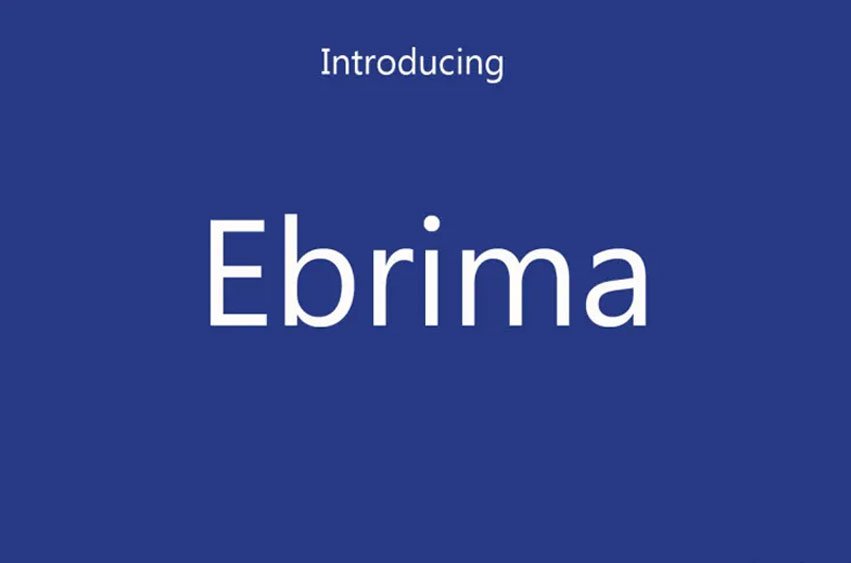
Ebrima Font
Ebrima Font is an Open Type font designed specifically to address issues to do with African languages.
This is a font developed by Microsoft and is bundled with windows 7 operating system; this font fully utilizes Open Type features such as combining diacritical marks and positioning. In addition, its Latin alphabet was drawn from Segoe family of fonts.